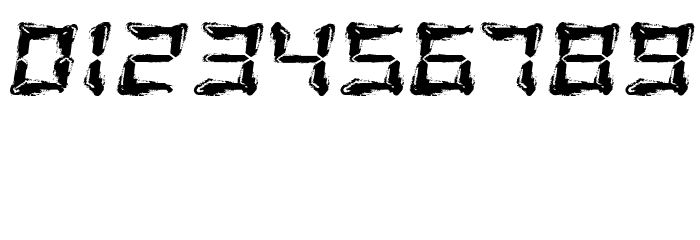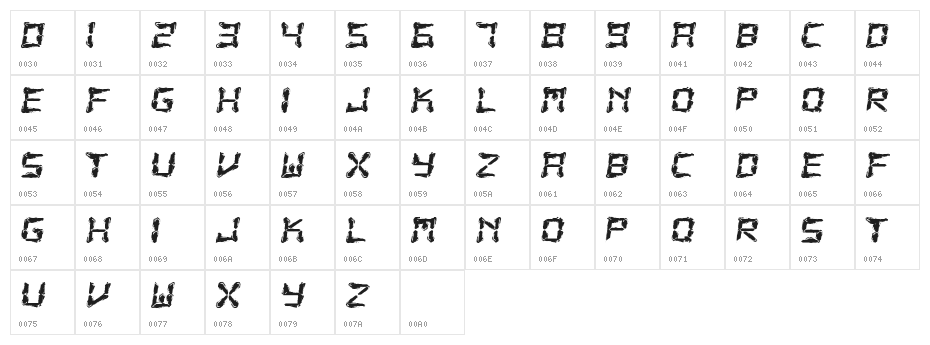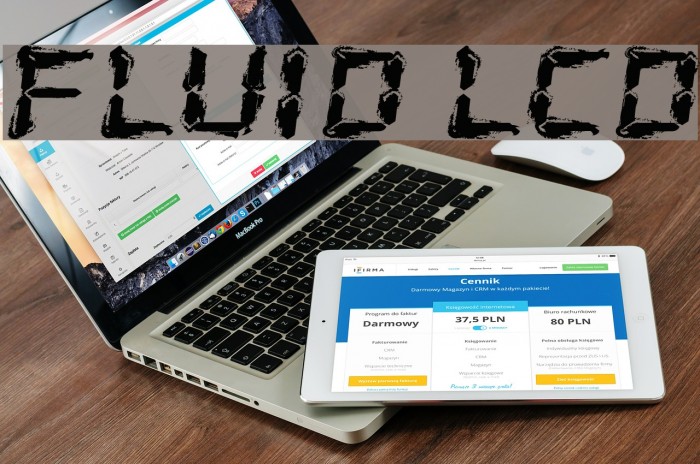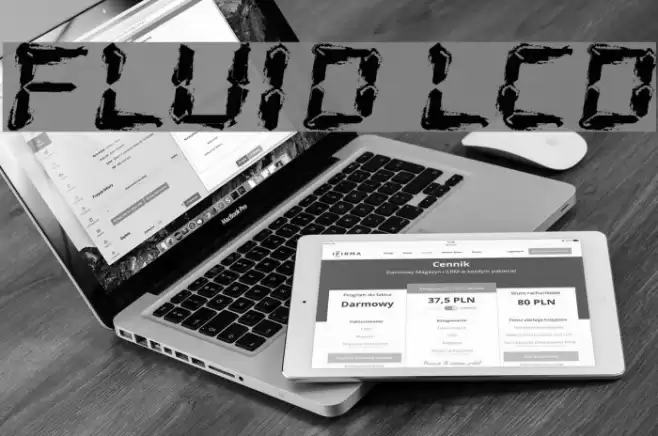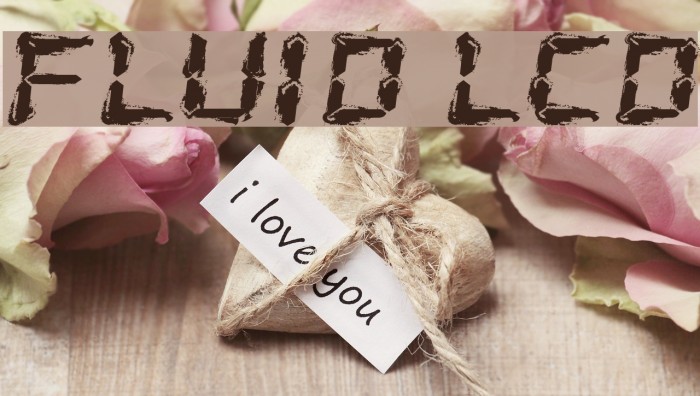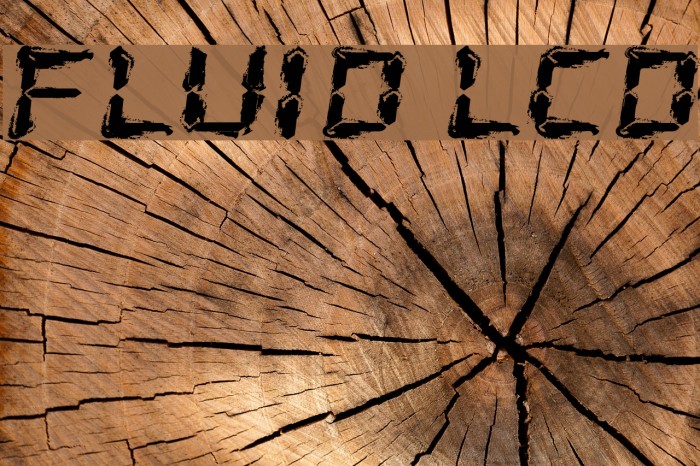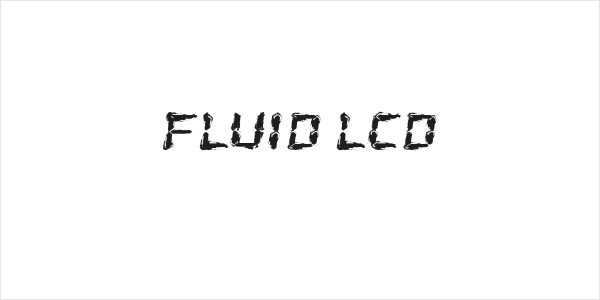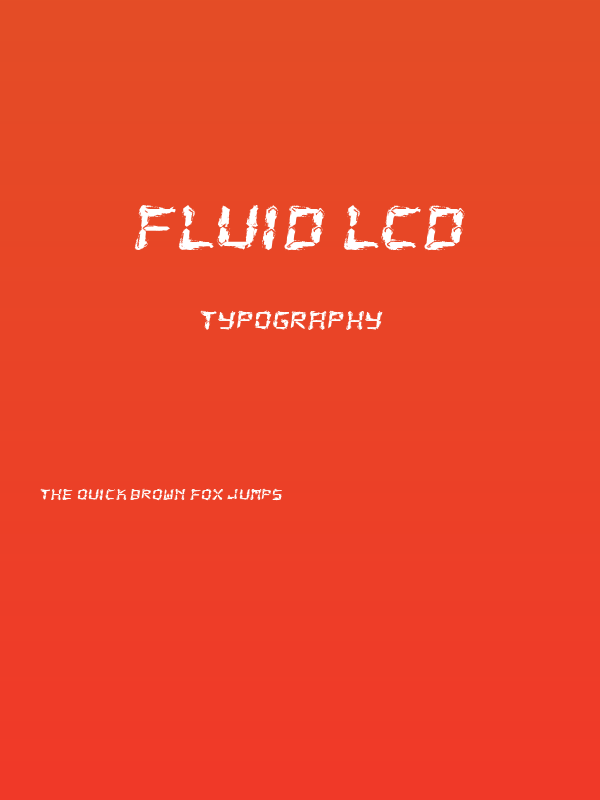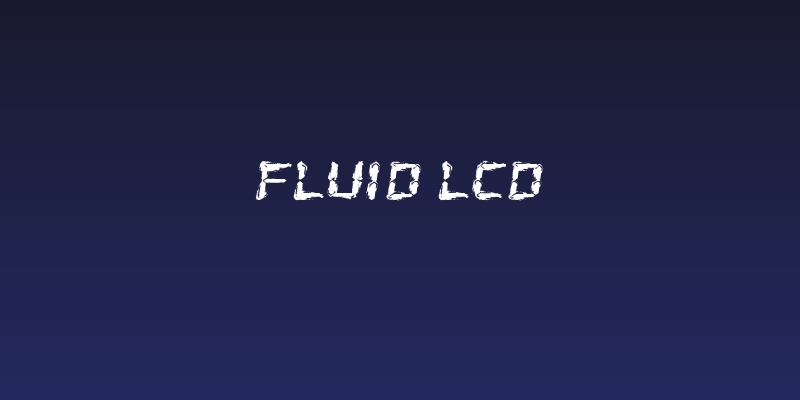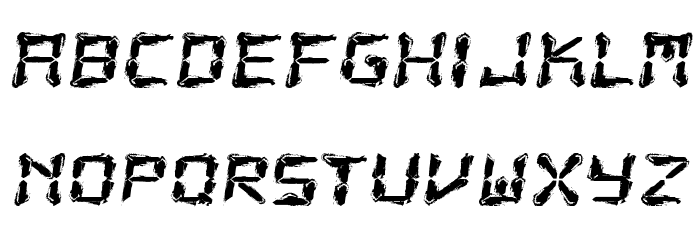
Fluid LCD Font
Fluid LCD Description
This font features a unique, fluid design that mimics the appearance of liquid or ink splatters forming each character. The letters and numbers are crafted with irregular edges and varying thicknesses, creating a dynamic and energetic look. The style is reminiscent of digital displays or LCD screens, yet with an organic twist that adds a sense of movement and flow. Each character is distinct, with a bold presence that captures attention. The font's artistic and unconventional nature makes it suitable for creative projects that require a standout visual element.
| Proposed Projects | Ideal for digital art, album covers, video game titles, or any project needing a bold, artistic touch. |